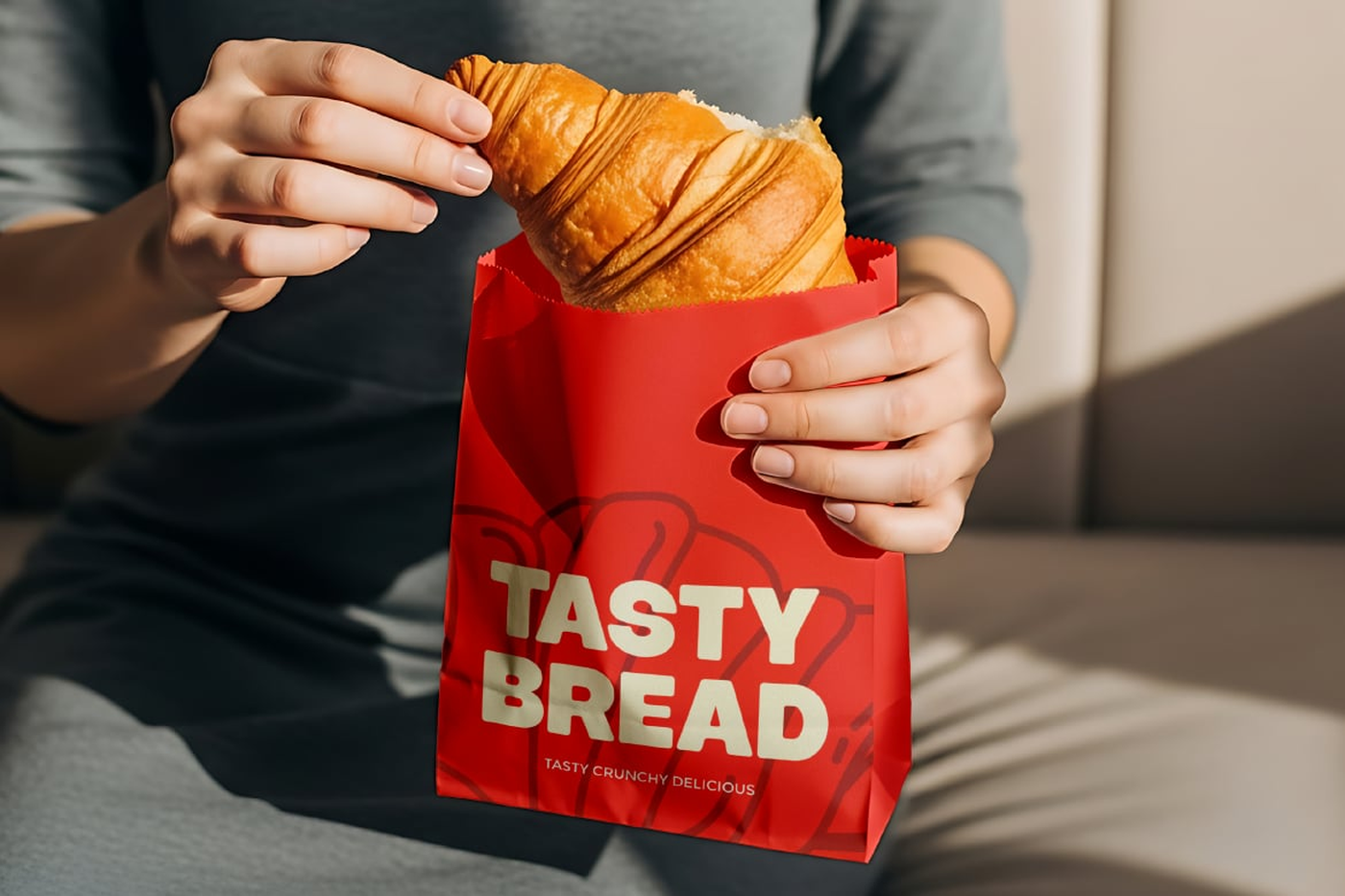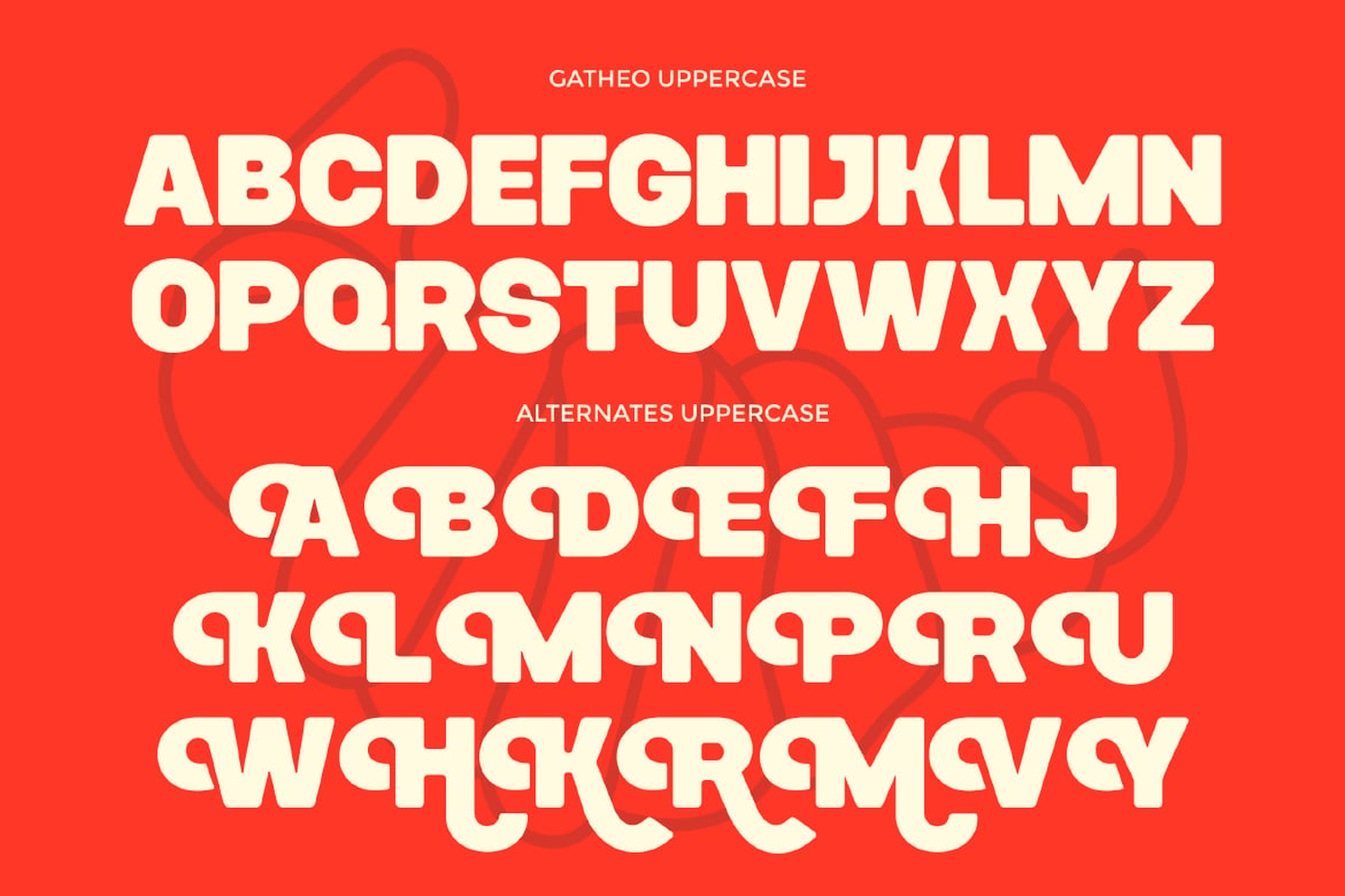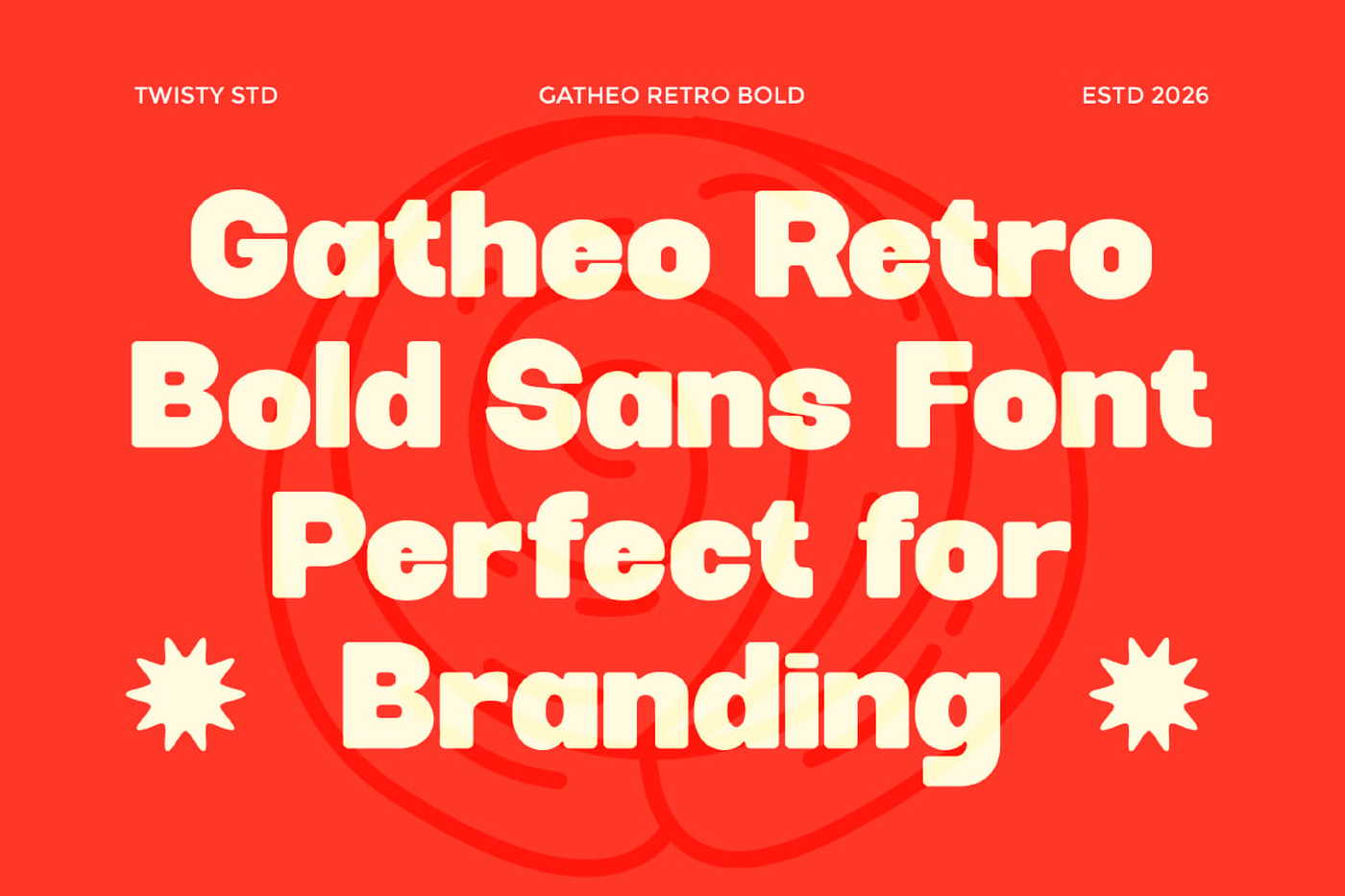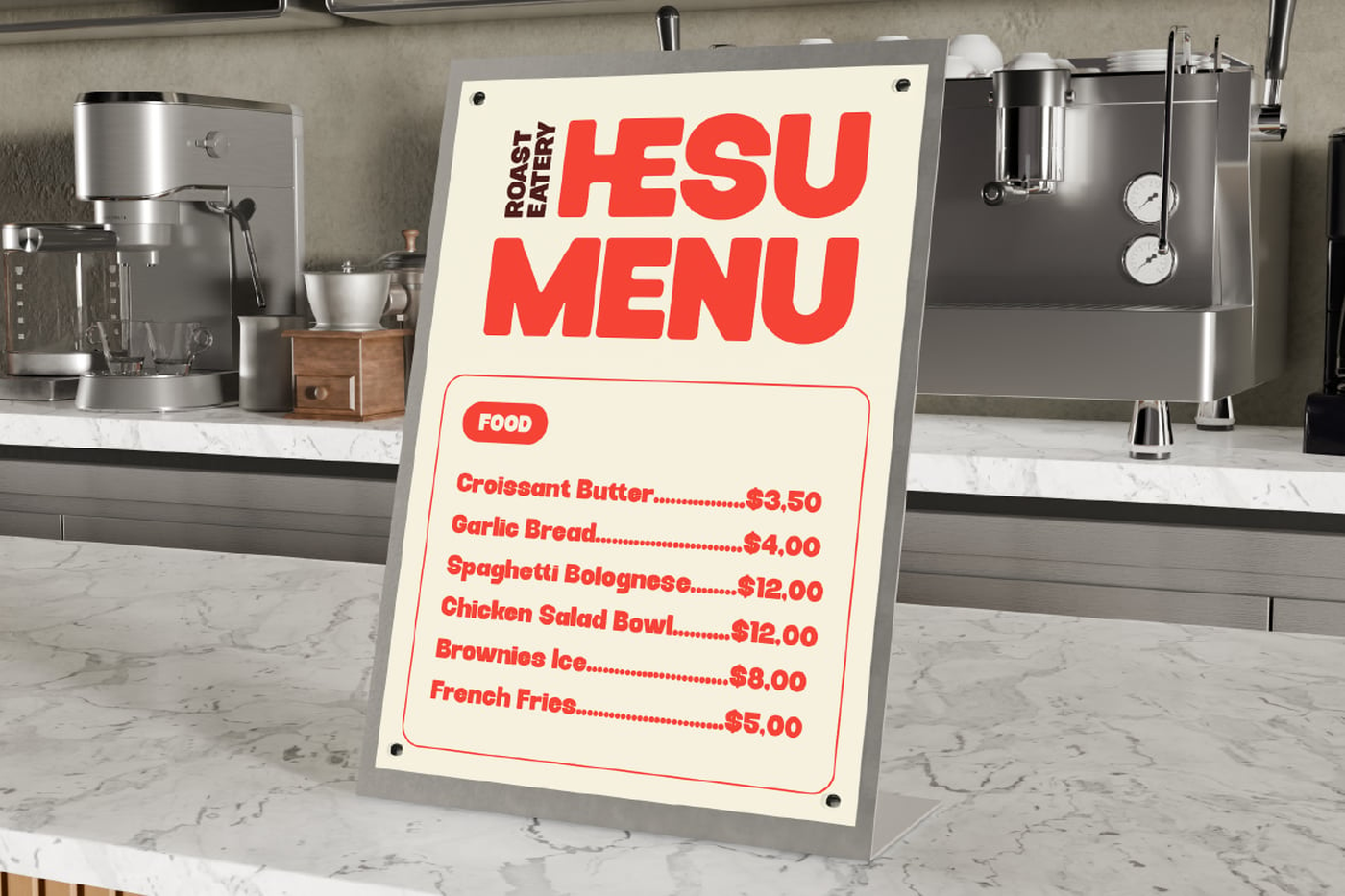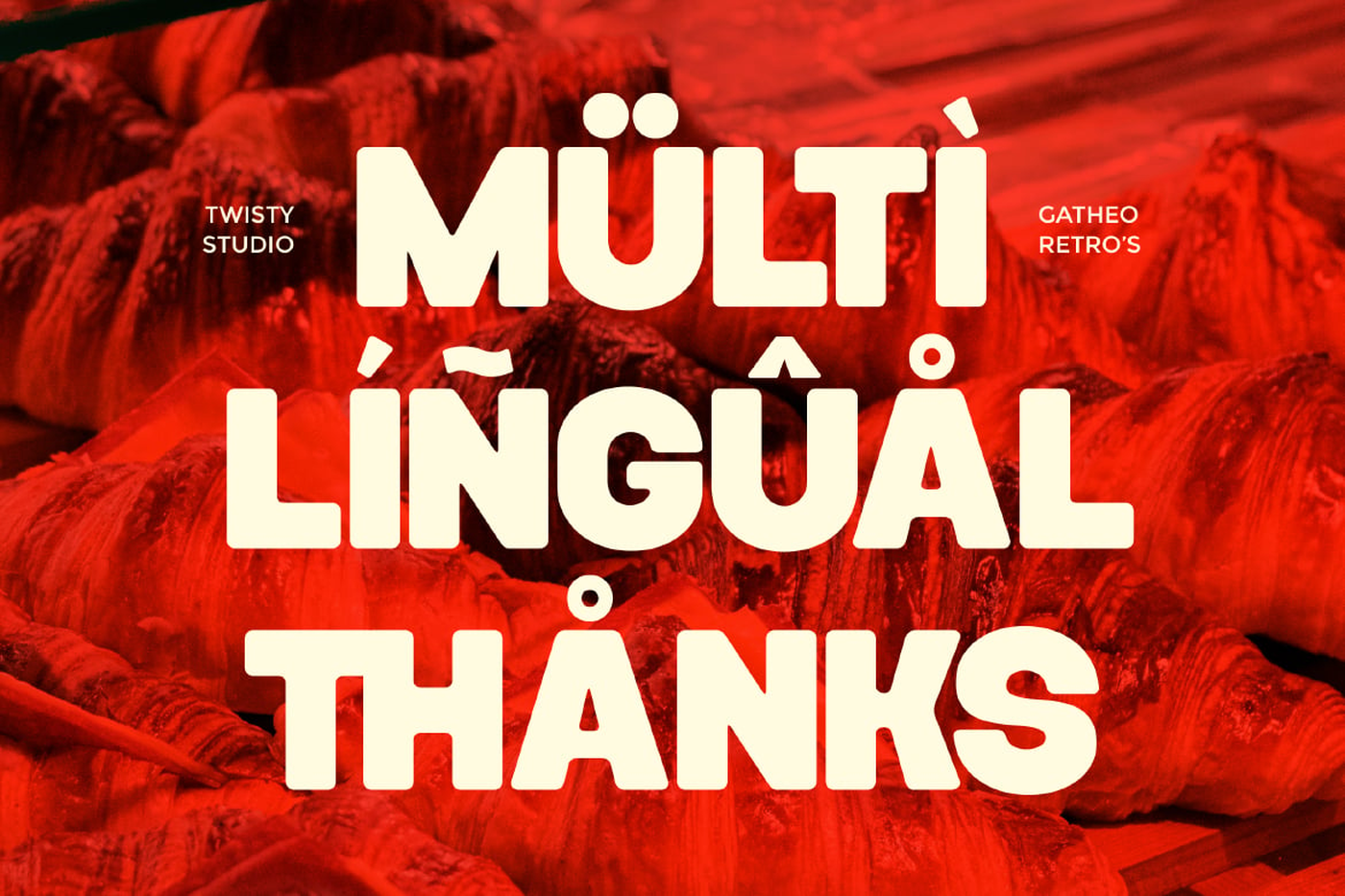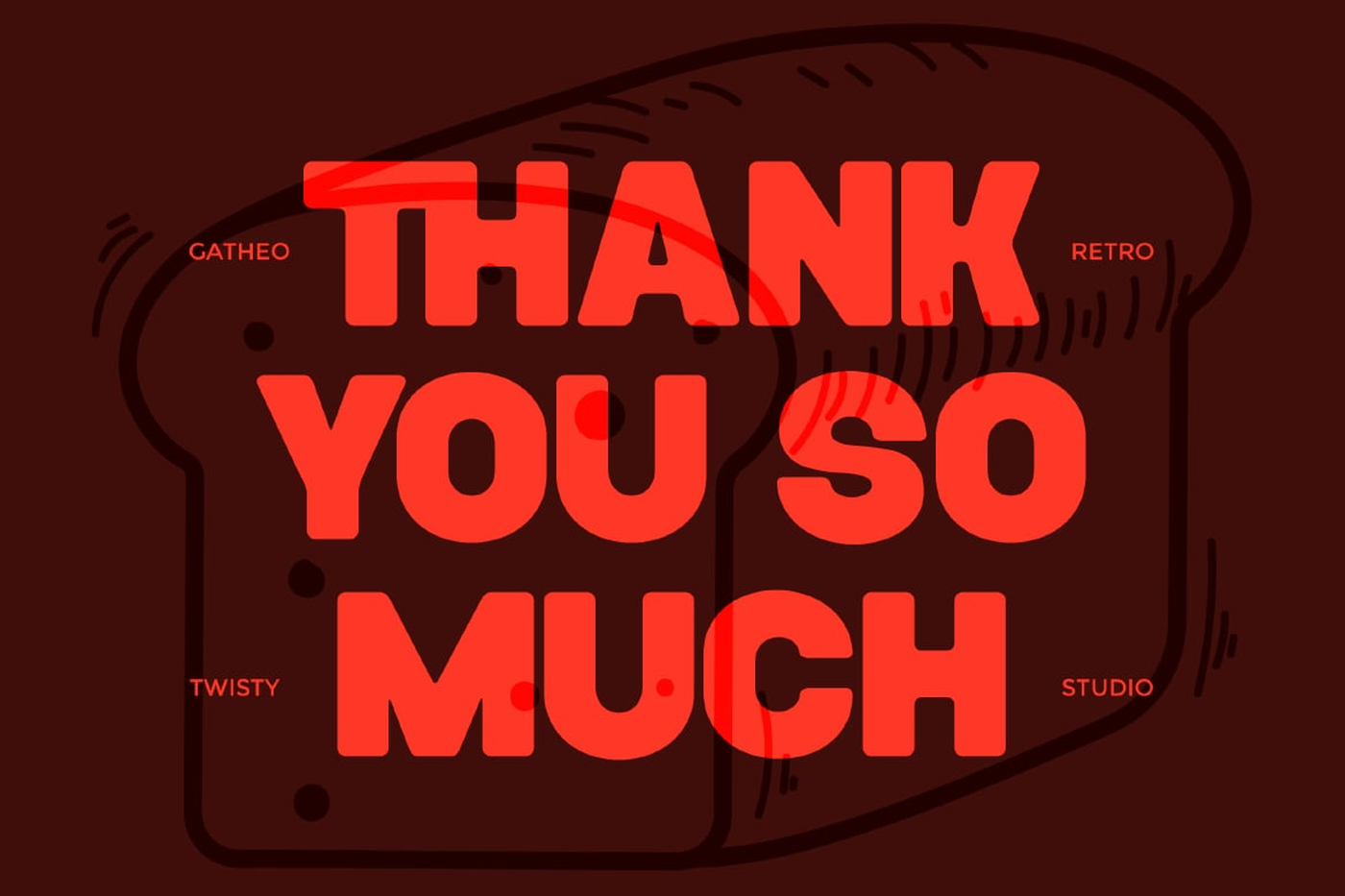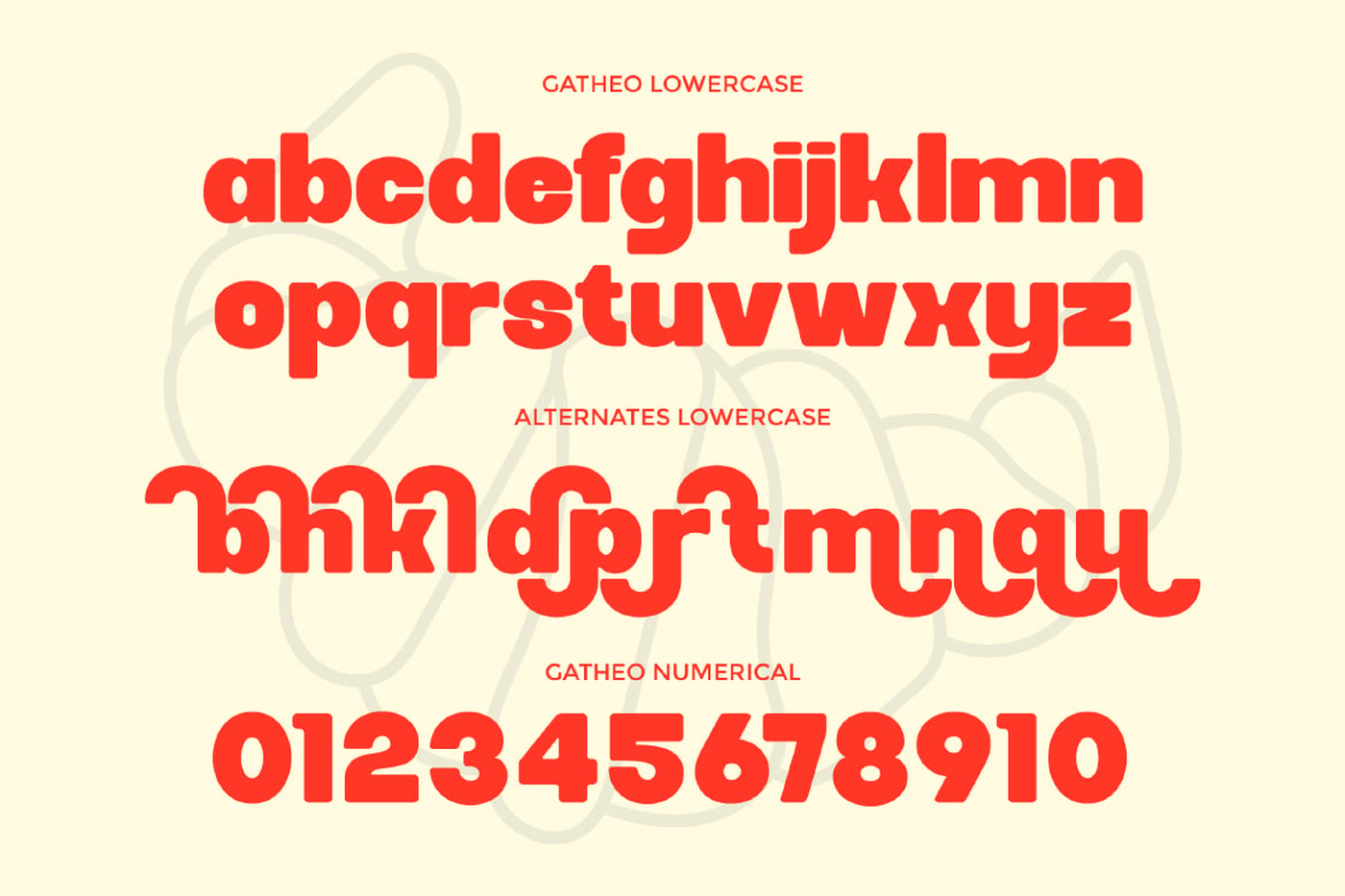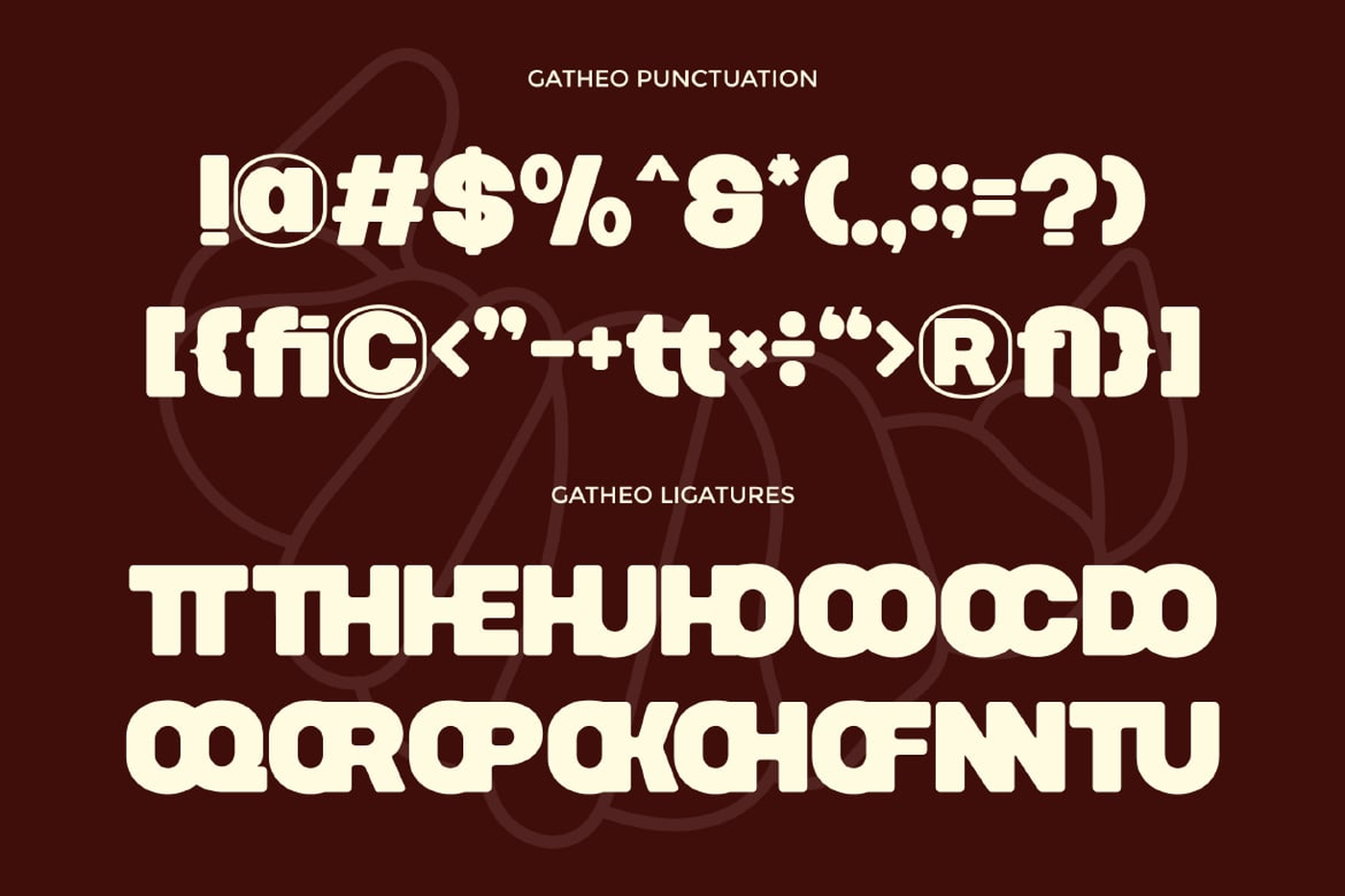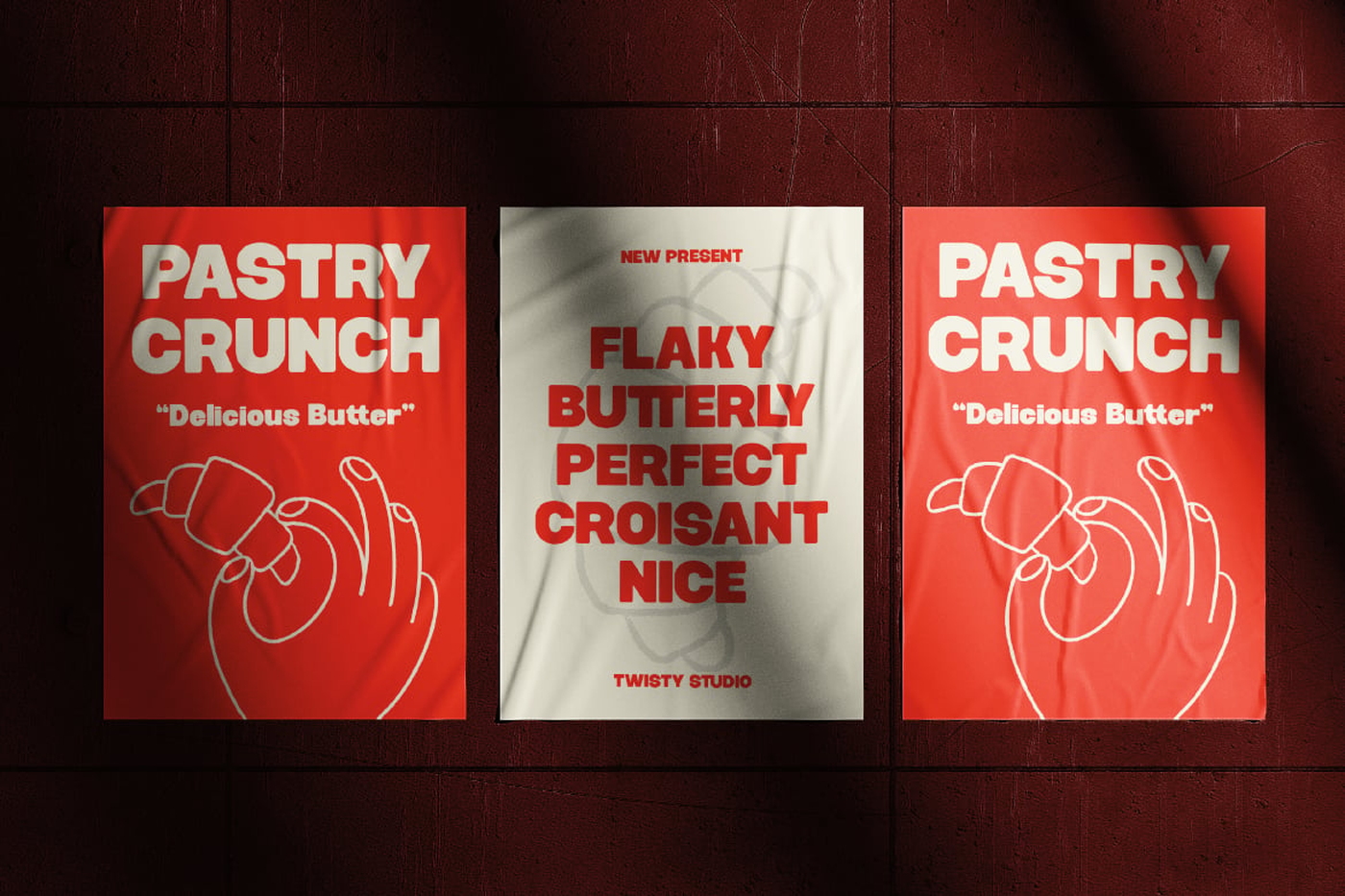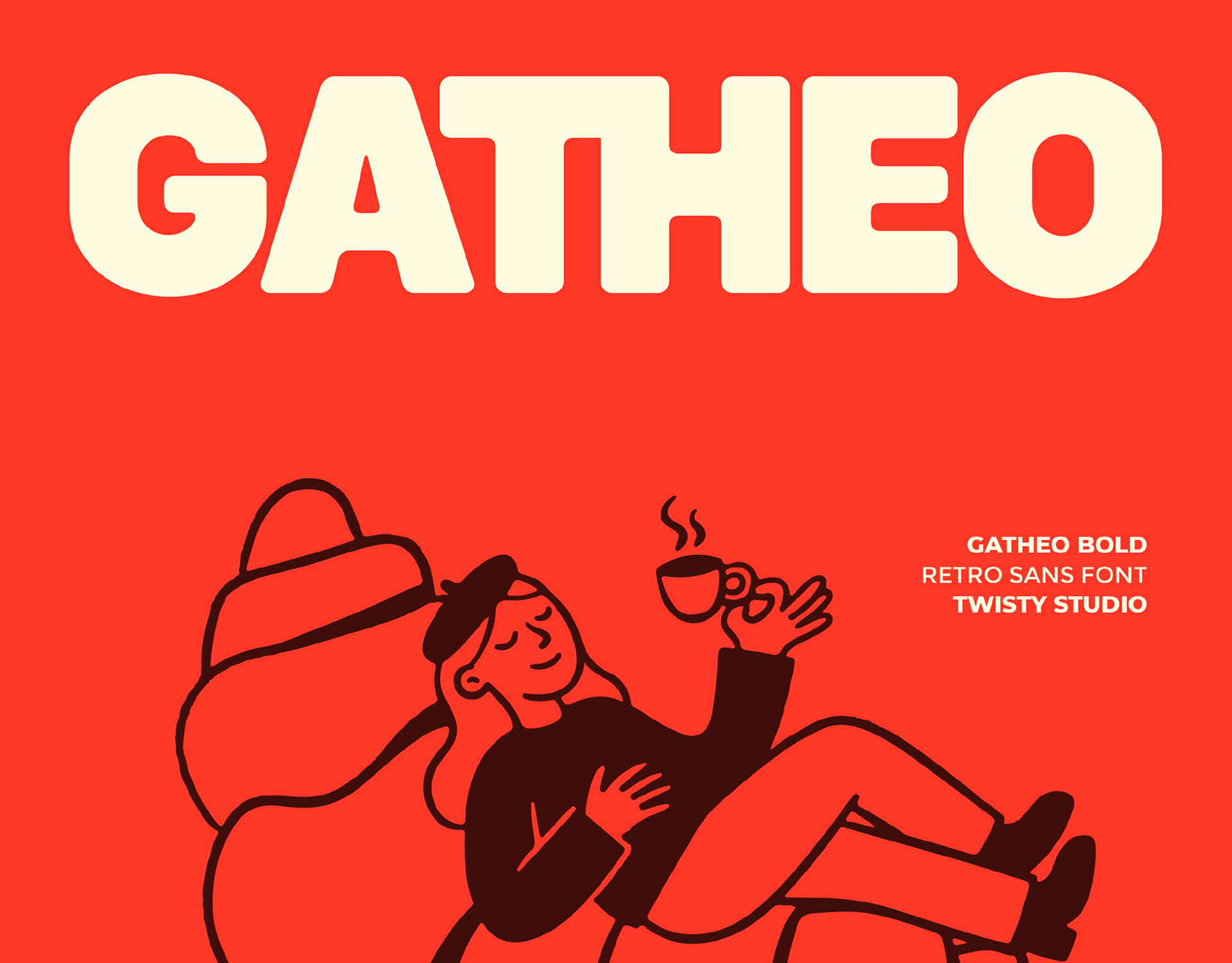
Gatheo - Retro Bold Sans Font
Gatheo is a bold retro sans font that brings vintage character to life with a modern, confident twist. Inspired by classic design eras, Gatheo features thick strokes, smooth curves, and a strong structure that creates a warm, nostalgic feel while remaining fresh and relevant. Its bold form makes it perfect for attention-grabbing typography, delivering a playful yet solid presence in every composition. The retro influence adds personality and charm, while the clean sans foundation keeps it versatile and easy to use across various design styles.
Designer: Twisty .std
Font: Gatheo